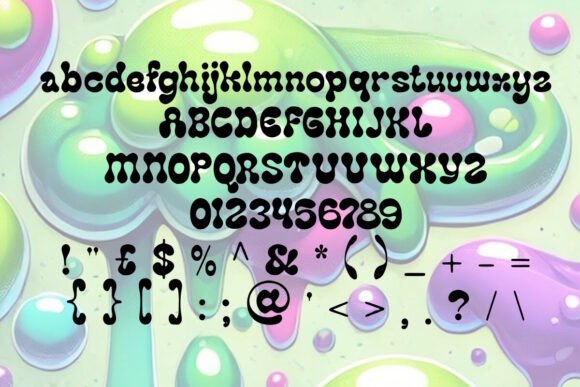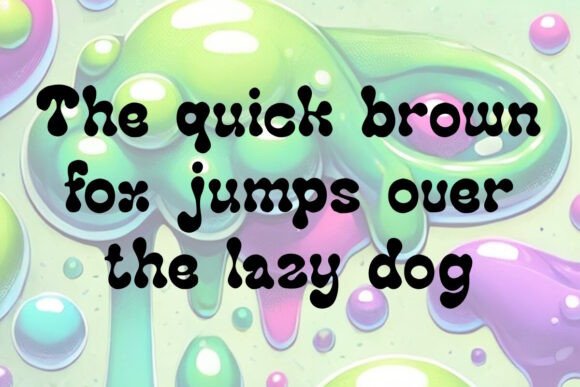
Wiggly, Wobbly, and Wonderfully Weird: The Blorp Blop Font Phenomenon
Are you tired of the same old boring fonts? Do you want to add a dash of whimsy and fun to your designs? Look no further than the Blorp Blop font! This delightfully quirky typeface is taking the design world by storm with its blobby, melting shapes and organic flow. In this article, we’ll dive into the wonderful world of Blorp Blop and explore why it’s the ultimate font for all things gooey, drippy, and delightfully squishy!
The Birth of Blorp Blop
Blorp Blop is a font that defies convention. Its creator, a visionary designer with a passion for all things weird and wonderful, set out to craft a typeface that would bring a smile to people’s faces. And boy, did they succeed! With its wiggly, wobbly lines and blobby shapes, Blorp Blop is the perfect antidote to the usual stiff and serious fonts that dominate the design landscape.
The Characteristics of Blorp Blop
So, what makes Blorp Blop so special? Here are just a few of its standout features:
- Blobby shapes: Blorp Blop’s letters are made up of soft, rounded blobs that give the font its signature look.
- Organic flow: The font’s lines and curves have a wonderfully organic, hand-drawn feel that makes it perfect for designs that need a touch of personality.
- Wiggly, wobbly lines: Blorp Blop’s lines are never straight, adding to the font’s playful, whimsical vibe.
Perfect for Playful Designs
Blorp Blop is the perfect font for designs that don’t take themselves too seriously. Here are just a few ideas to get you started:
- Spooky Halloween invites: Add a dash of spooky whimsy to your Halloween invites with Blorp Blop’s drippy, gooey letters.
- Science experiment logos: Bring a touch of fun and experimentation to your science-themed designs with Blorp Blop’s blobby, melting shapes.
- Fun and quirky branding: Use Blorp Blop to add a dash of personality to your brand’s designs and stand out from the crowd.
Why Designers and Crafters Love Blorp Blop
So, why are designers and crafters going crazy for Blorp Blop? Here are just a few reasons:
- Uniqueness: Blorp Blop is a font that stands out from the crowd. Its quirky, whimsical design makes it perfect for designers who want to add a touch of personality to their work.
- Versatility: Despite its playful vibe, Blorp Blop is surprisingly versatile. Use it for everything from logos and branding to social media graphics and invitations.
- Fun: Let’s face it – Blorp Blop is just plain fun! It’s the perfect font for designers who want to bring a smile to their clients’ faces.
Tips for Using Blorp Blop
Ready to give Blorp Blop a try? Here are a few tips to get you started:
- Experiment with colors: Blorp Blop looks amazing in bold, bright colors. Try experimenting with different color combinations to really make your design pop.
- Play with textures: Add some extra depth and interest to your design by combining Blorp Blop with different textures and patterns.
- Don’t be afraid to get creative: Blorp Blop is all about having fun and being creative. Don’t be afraid to experiment and try new things!
In conclusion, Blorp Blop is a font that’s sure to bring a dash of fun and whimsy to your designs. With its blobby, melting shapes and organic flow, it’s the perfect typeface for designers who want to add a touch of personality to their work. Whether you’re creating a spooky Halloween invite, a science experiment logo, or just want your text to look like it’s having a meltdown (in the best way possible), Blorp Blop is the ultimate font for all things gooey, drippy, and delightfully squishy!